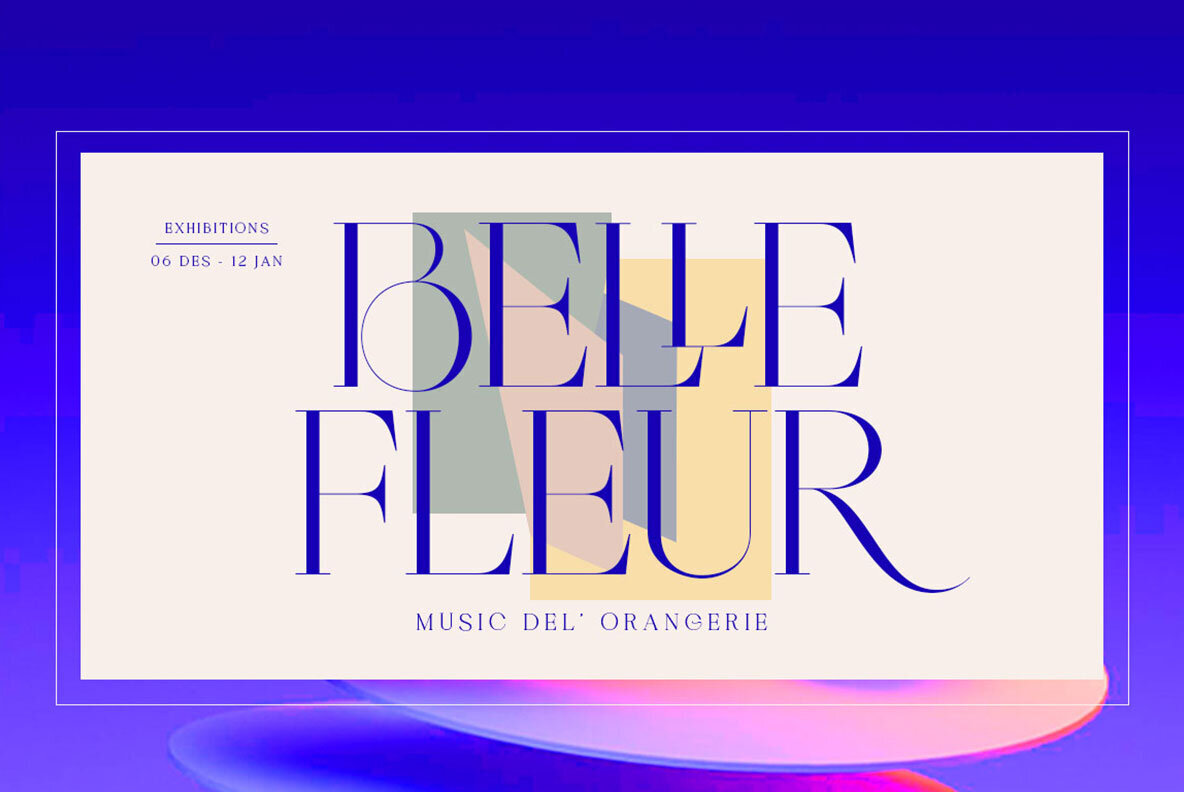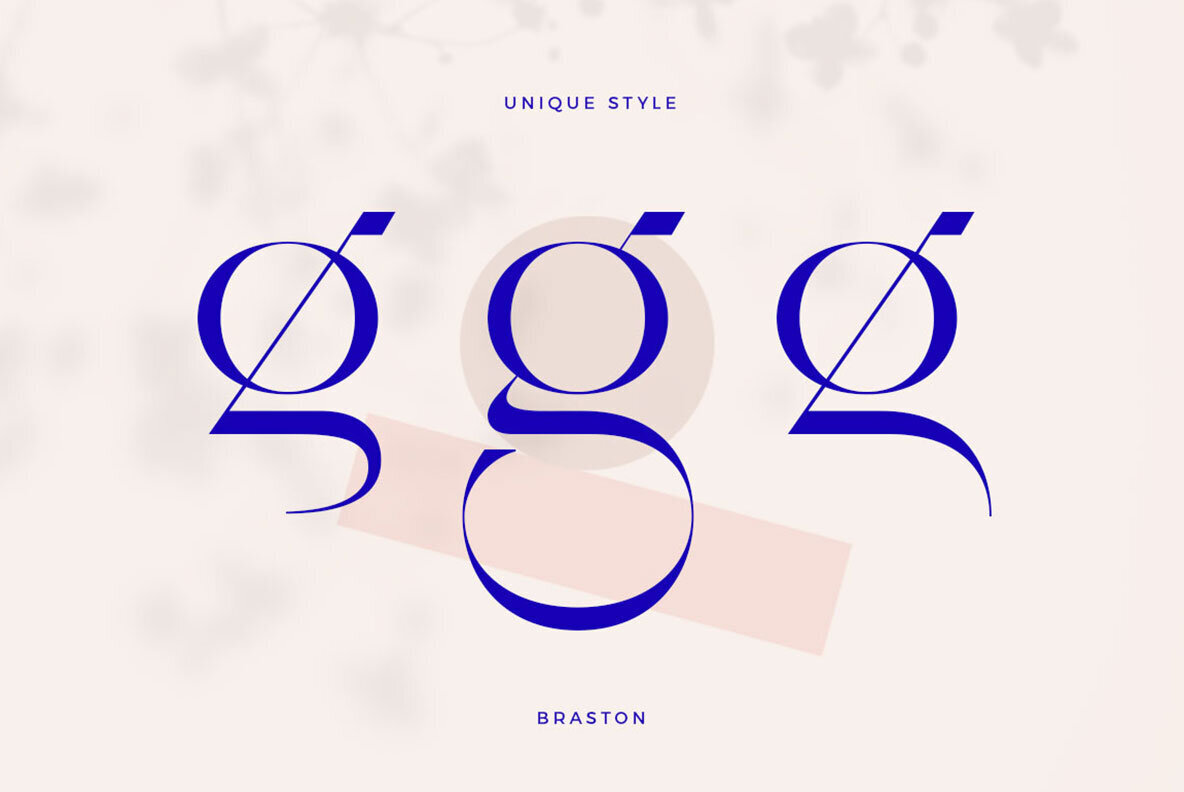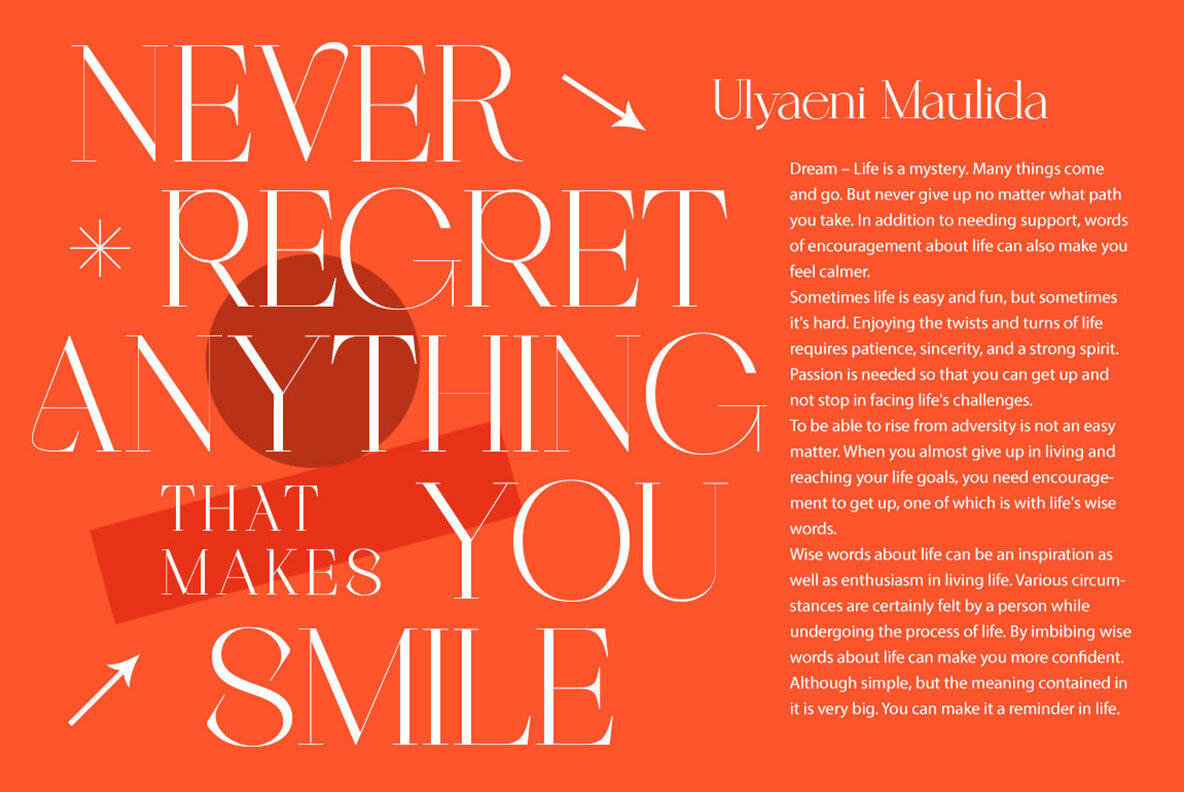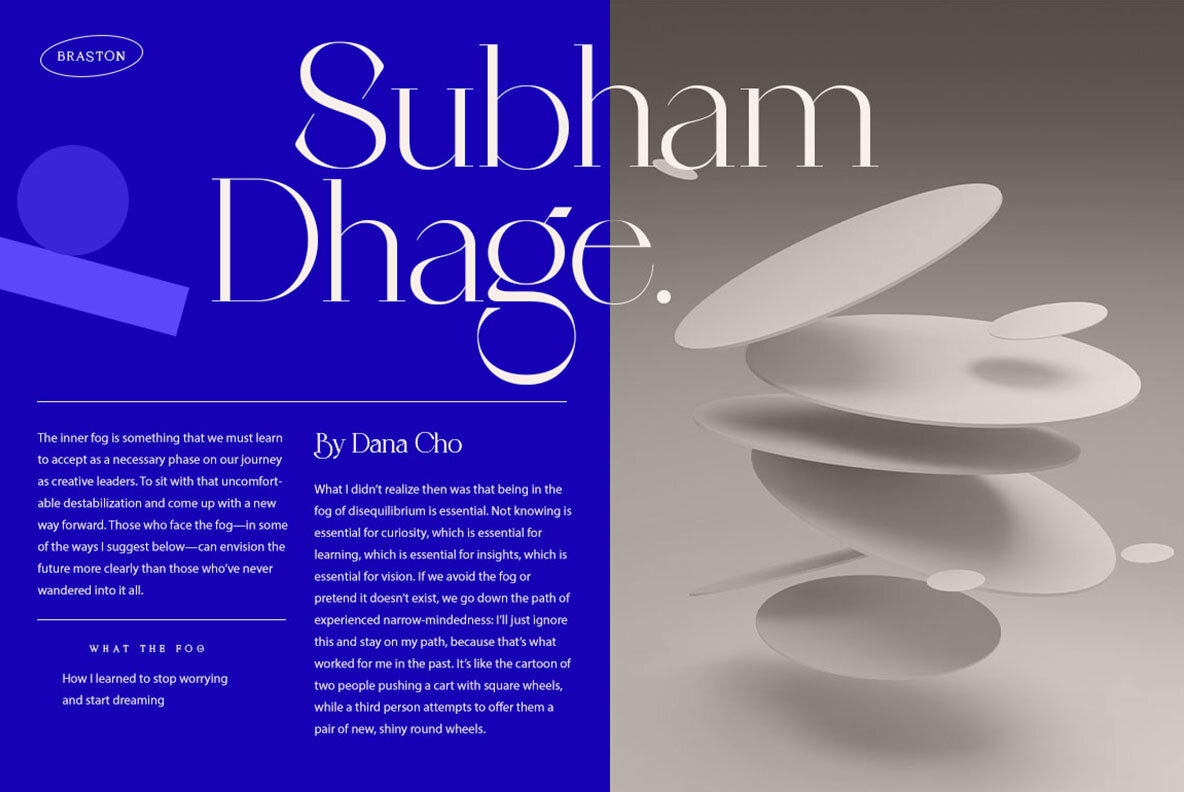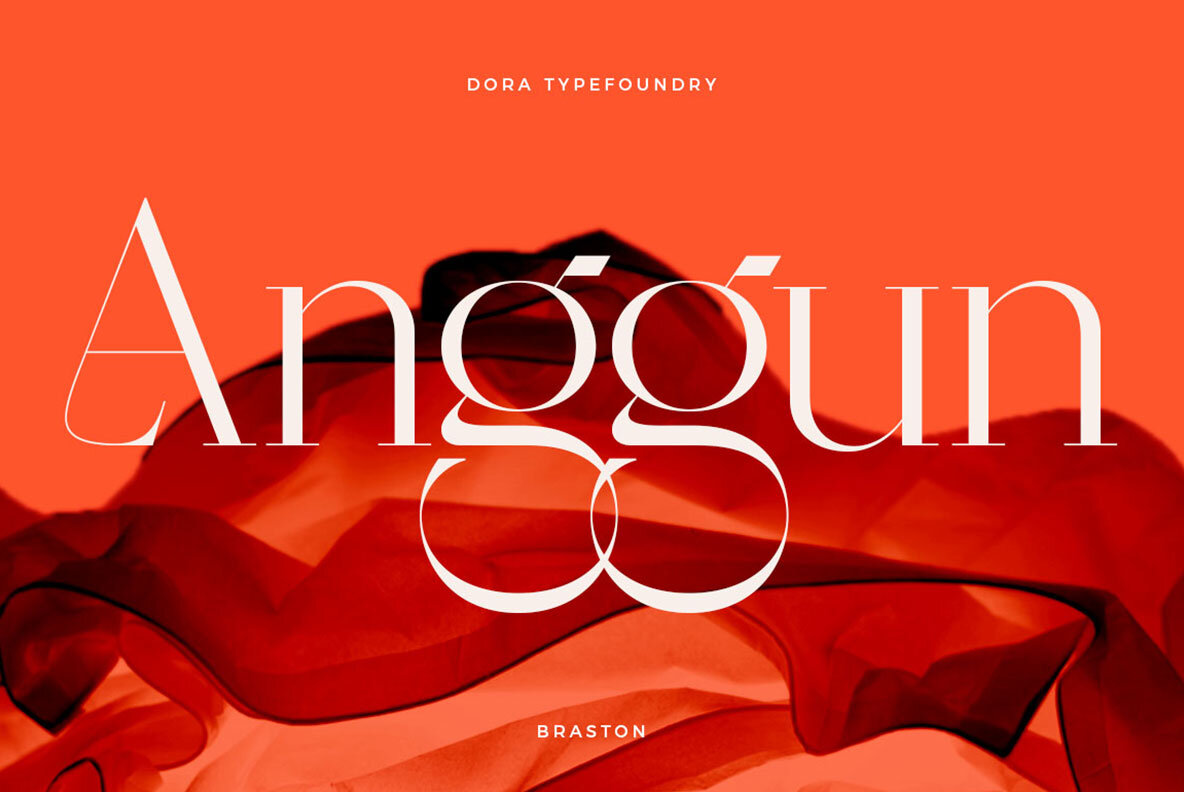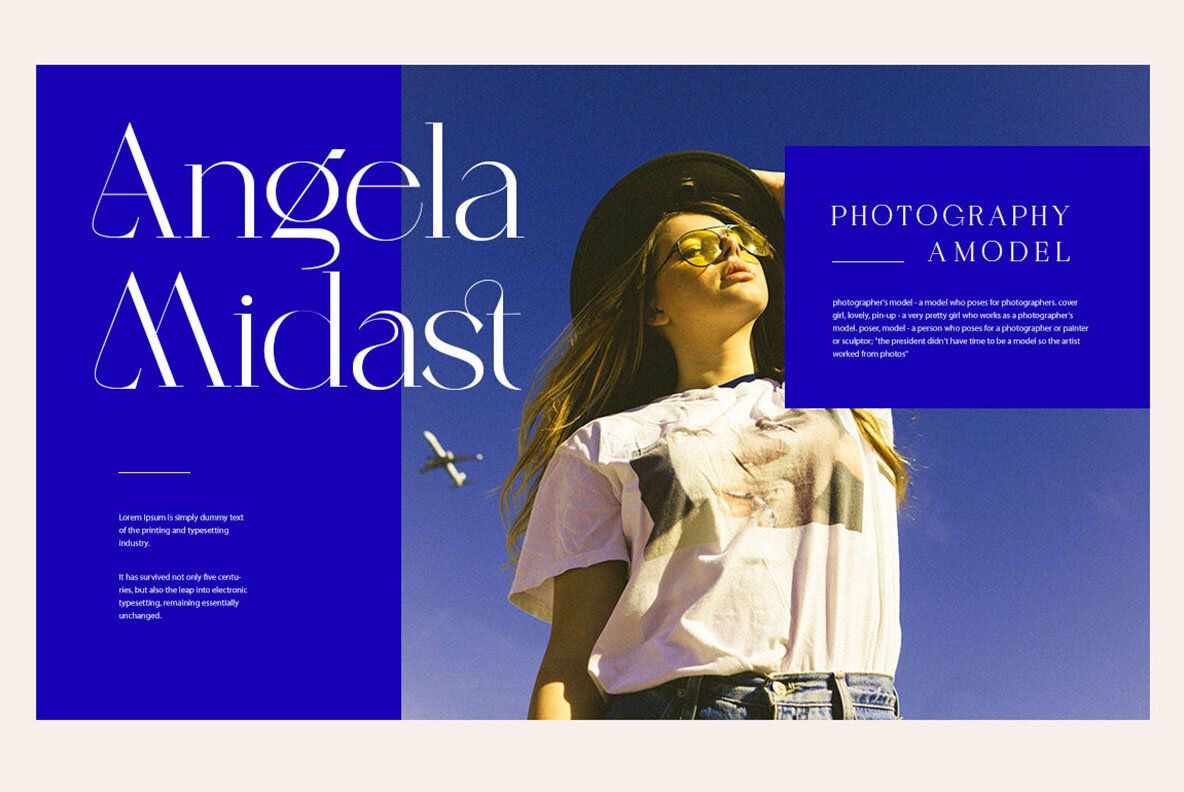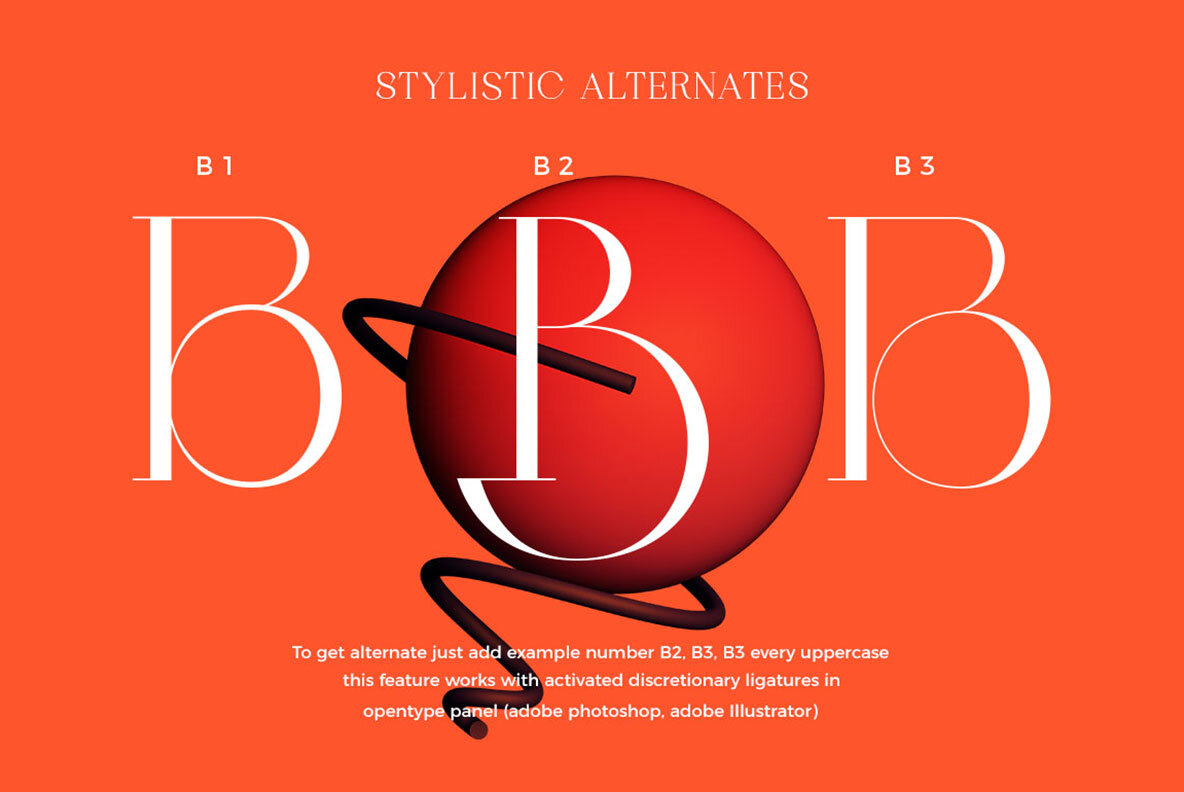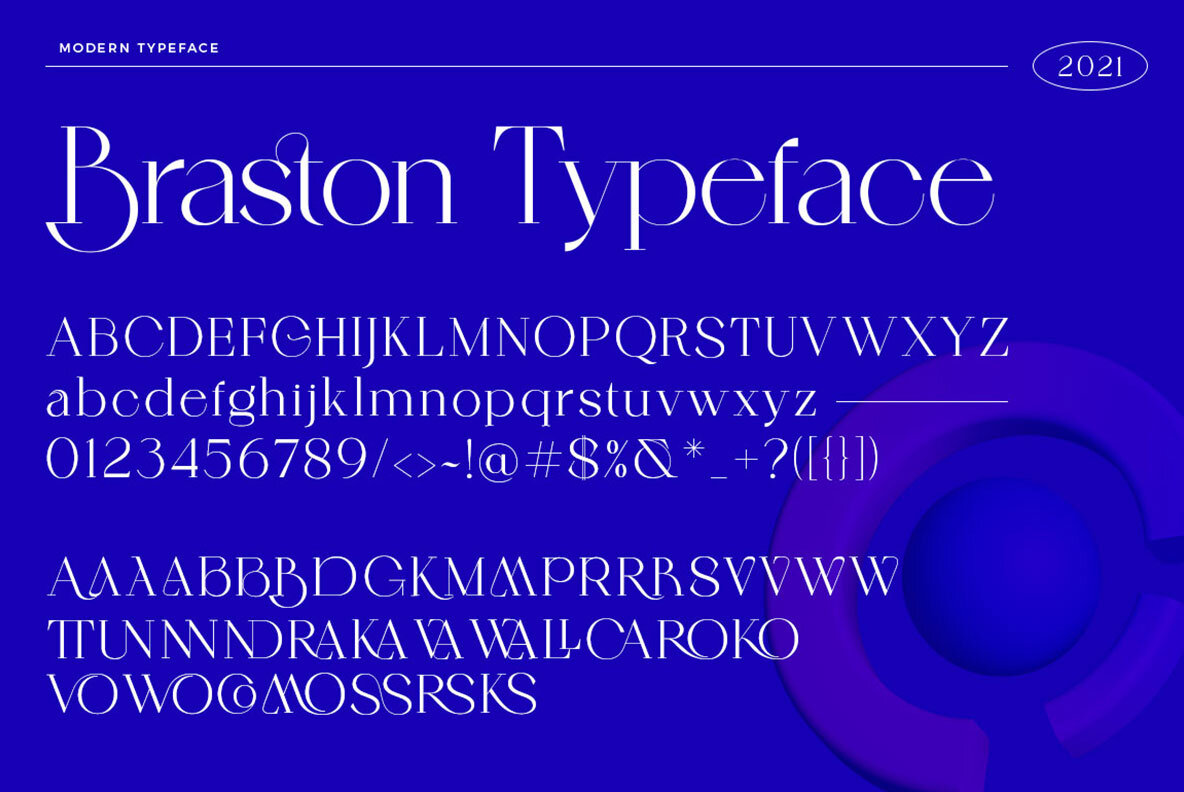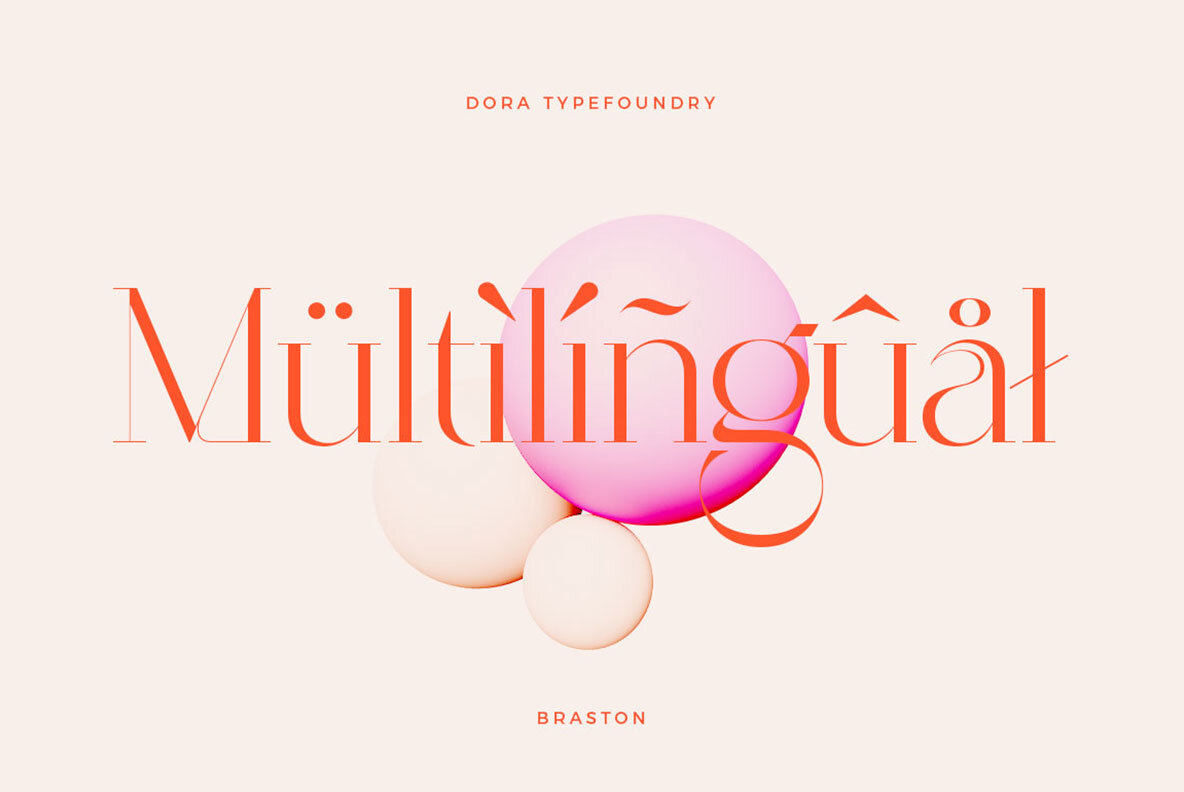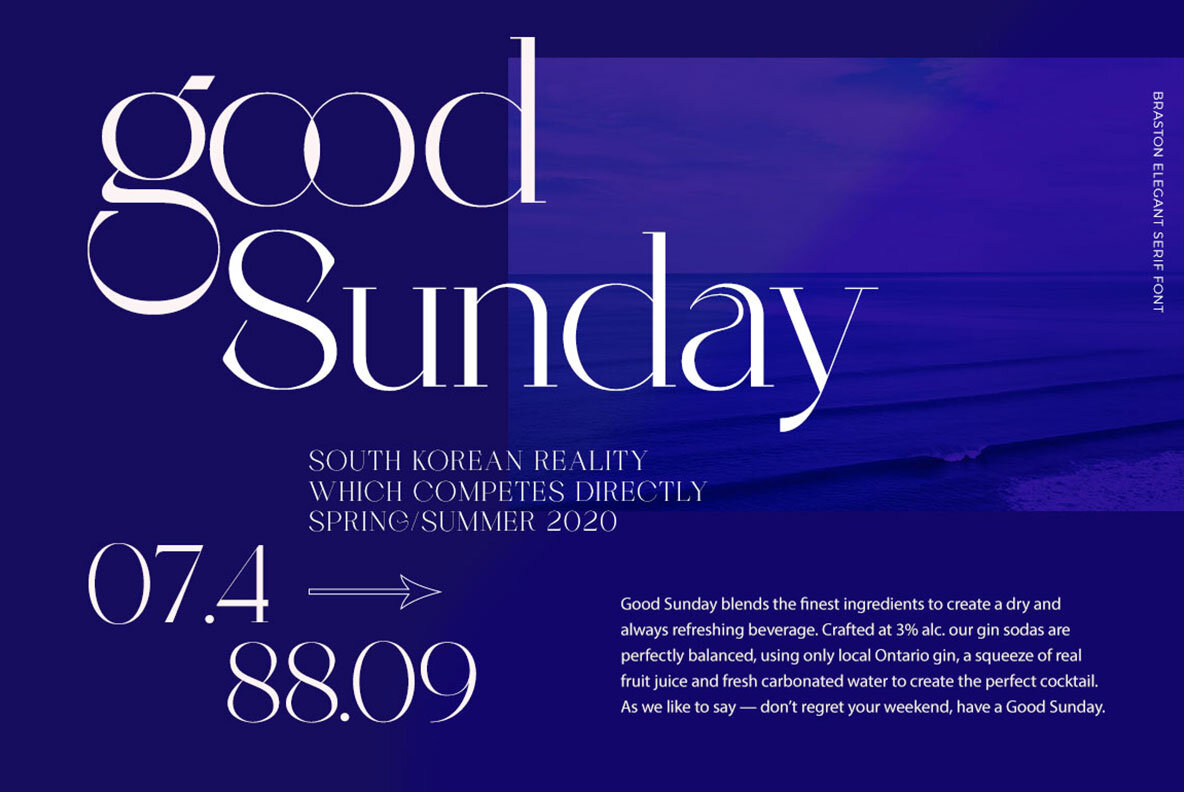
Braston Font
Braston Regular
Braston presents a modern twist on the decorative serif, combining unique curves and impactful uppercase characters to enhance any design project. This typeface is ideal for producing compelling layouts in both print and digital media, from branding and logo design to invitations and advertisements. Its versatility ensures endless creative possibilities. Braston promises ease and enjoyment in your design process, tailored to inspire originality and sophistication in a wide range of applications.Braston: Distinctive Serif Typeface for Creative Variety